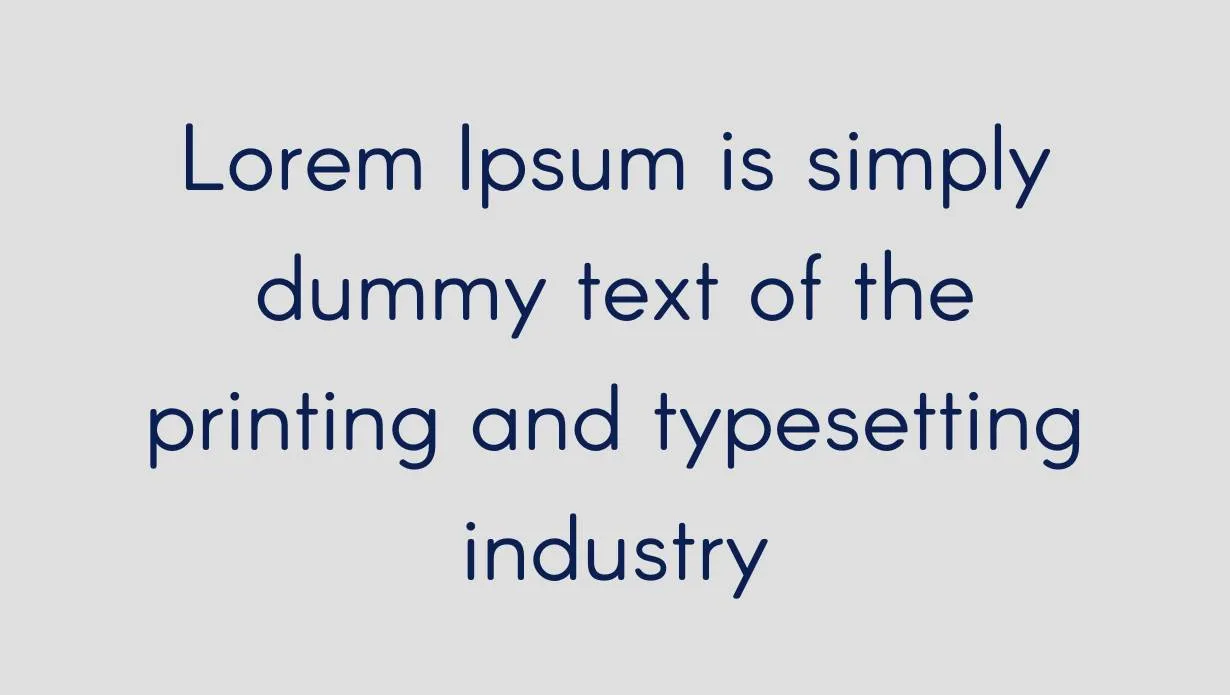
Arcon Font is a futuristic and bold typeface, reminiscent of sci-fi and it was designed by Mr. Martin Zarth. This font belongs to the Sas Serif fonts. It embodies a sense of technology and innovation.
Arcon Font Family
| Name | Arcon Font |
| Designer | Mr. Martin Zarth |
You can use this font for tech-related designs, logos, and futuristic concepts. This font also has an online text generator that allows you to convert your text online without any trouble. It has some similar fonts too, but Futuristic Font is the most similar font to this typeface.